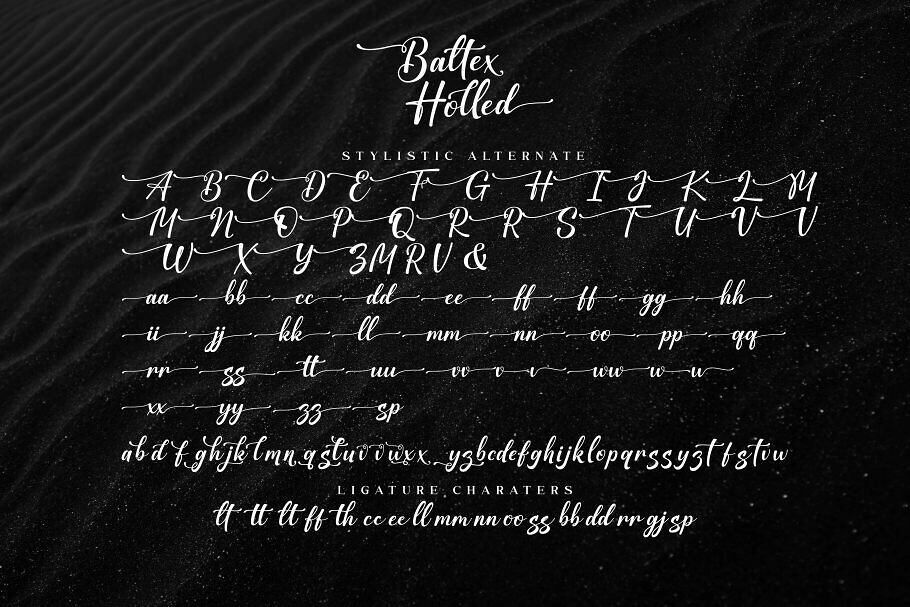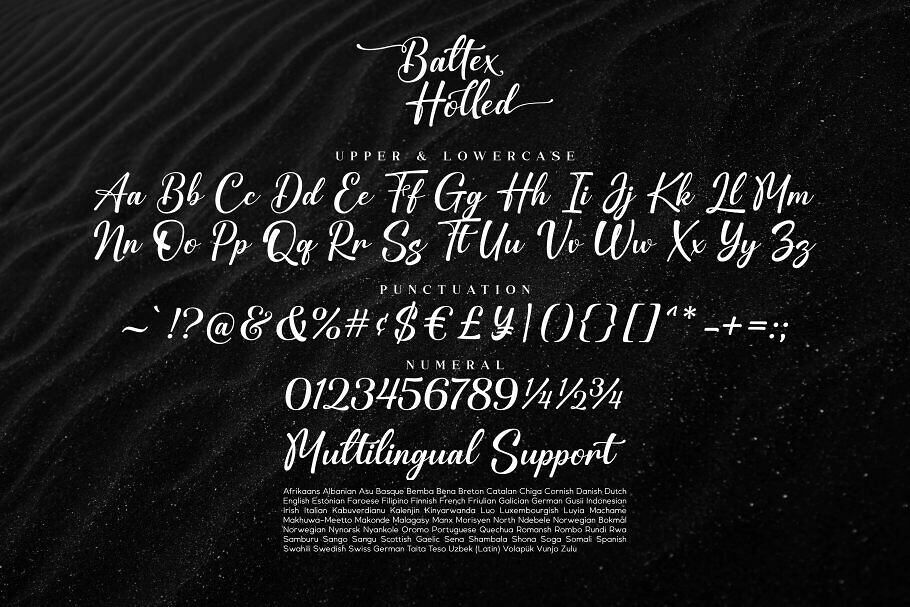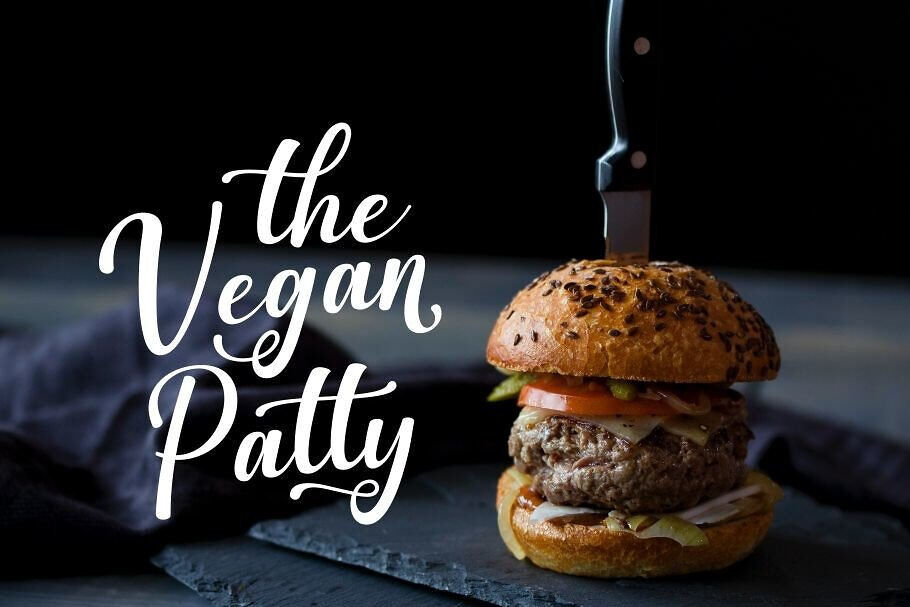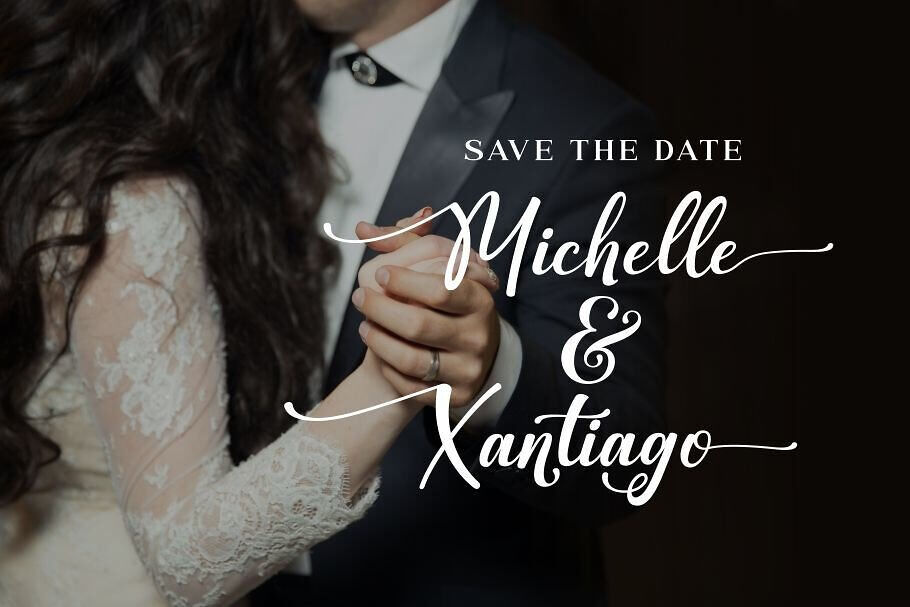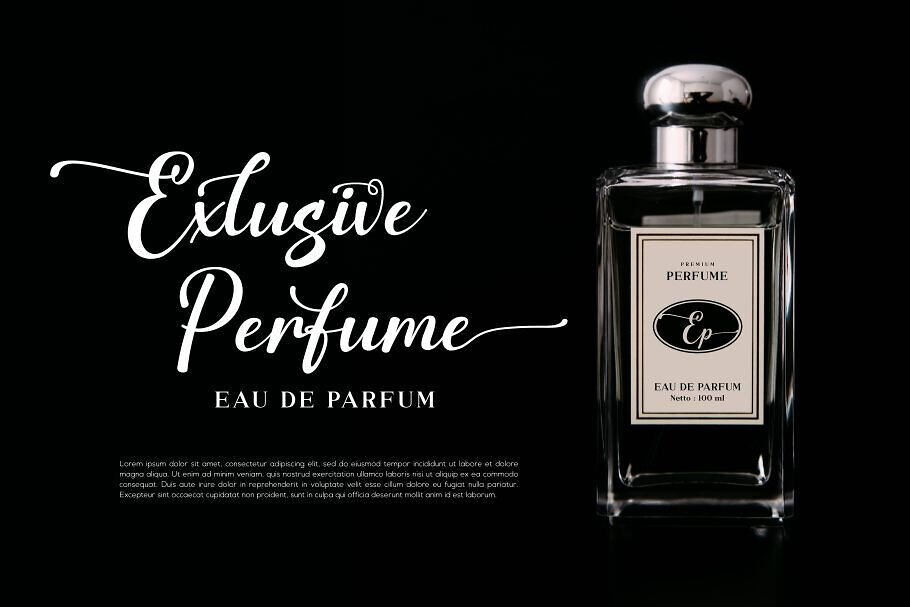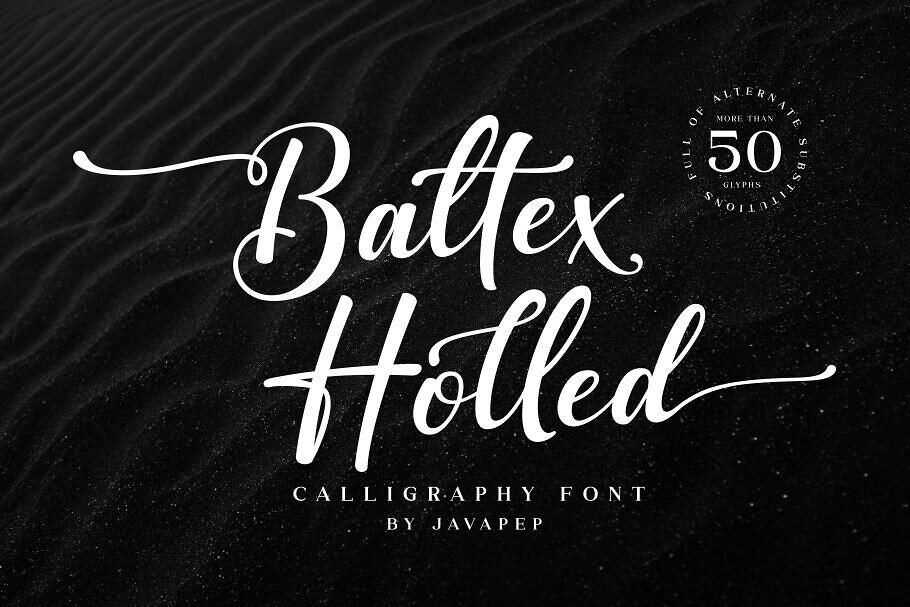
Baltex Holled Font
Baltex Holled is a calligraphy font with various alternate characters and a modern and elegant style. It is perfect for logos, titles, headlines, product packaging, branding identity, advertisements, media social posts, and more. This font is PUA encoded, which means you can access all of the glyphs and swashes with ease!